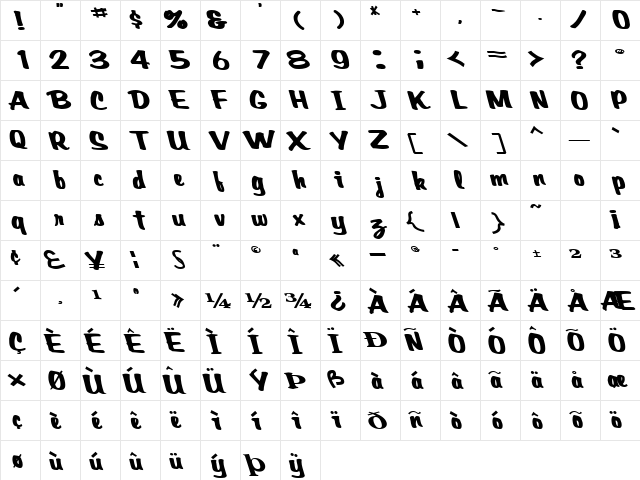
CreativePower Bold
Design Context for CreativePower Typeface
CreativePower brings high-energy athletic personality to the page — its confident, muscular forms are built for impact. Its bold stroke weight gives it real presence on the page.
Built for sports team identities, athletic apparel, event posters, and high-energy promotional material.
Font Pairing: Use alongside a condensed or geometric sans for supporting copy — keep the pairing bold, functional, and free of ornament.
Pro Tip: CreativePower thrives on contrast — try it large, bold, and tight against a clean background for maximum visual impact.